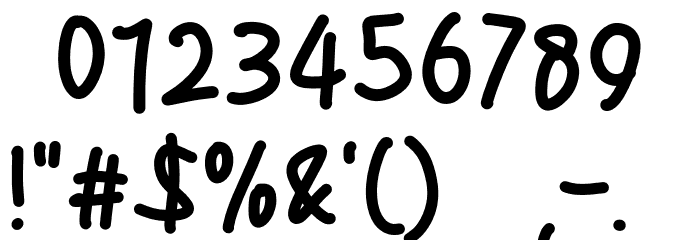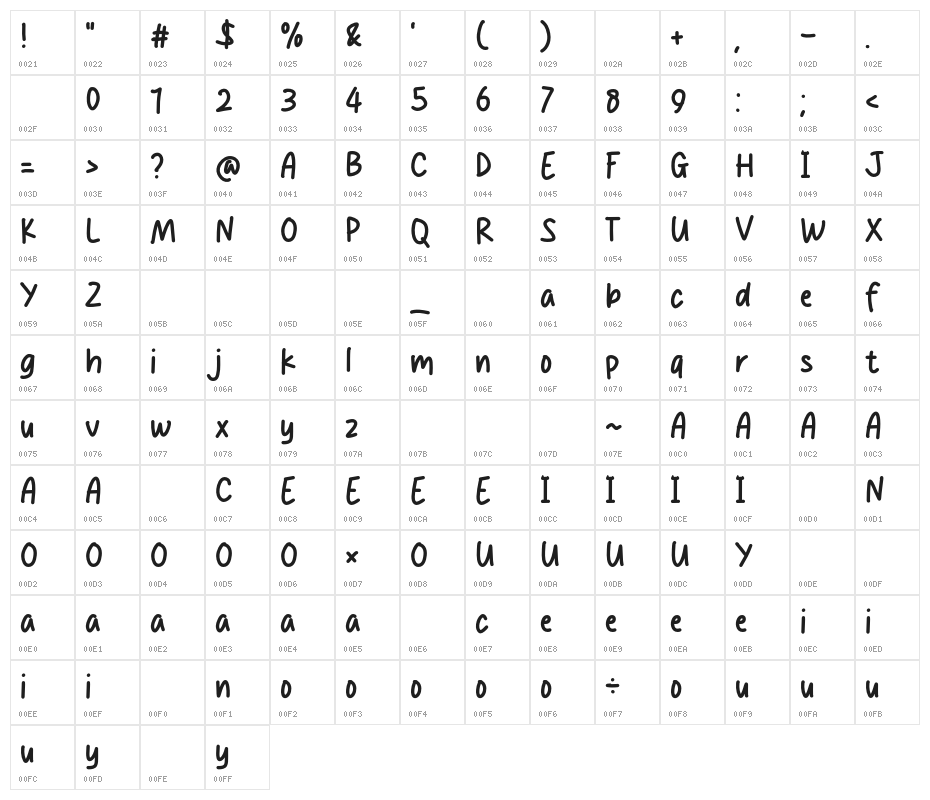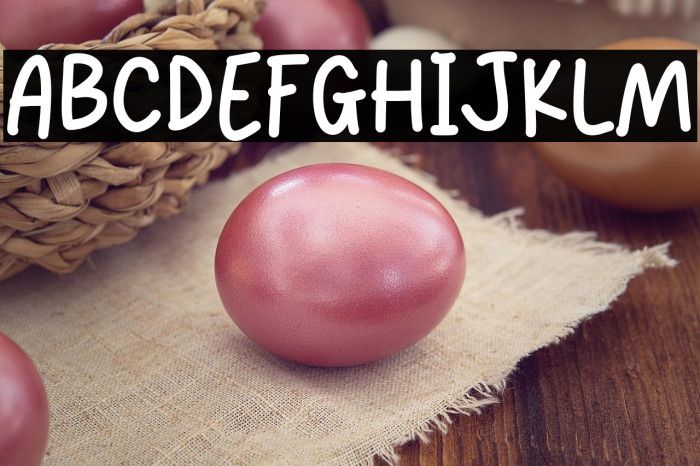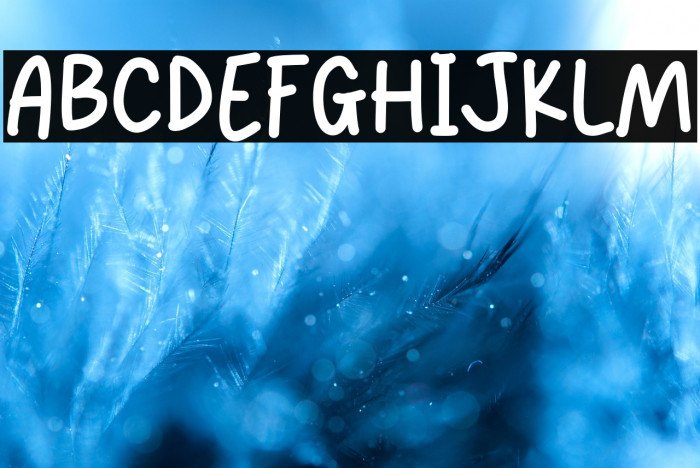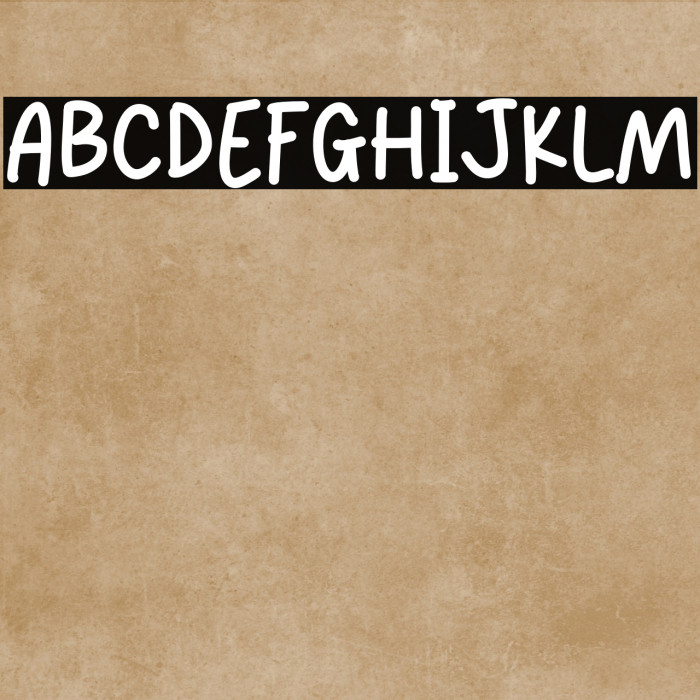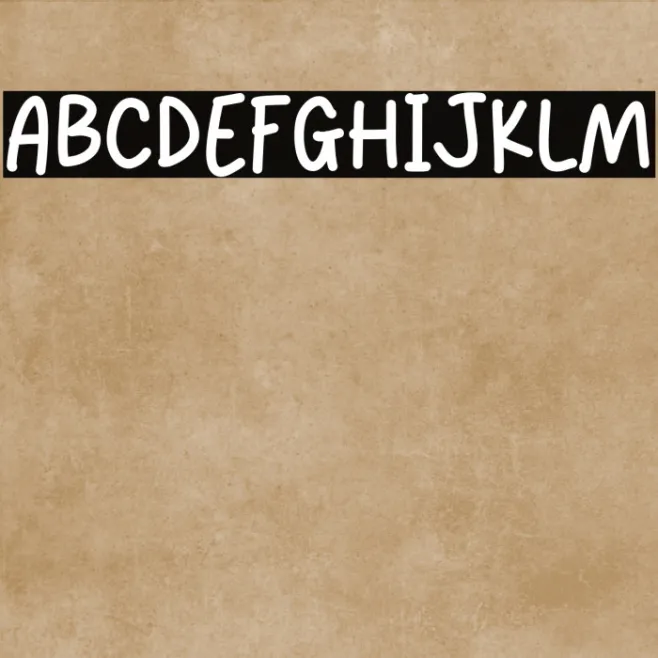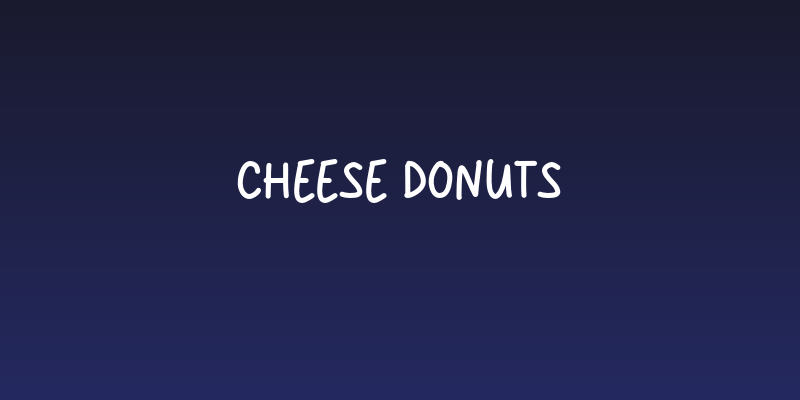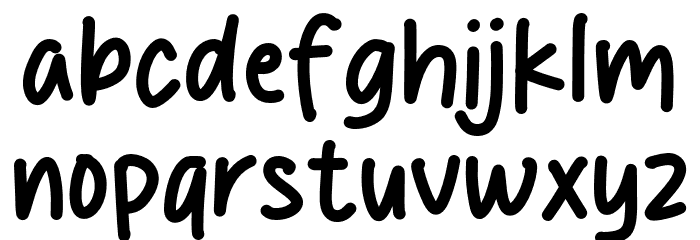
Cheese Donuts Font
Cheese Donuts Description
This playful and informal font features a handwritten style with rounded edges and a casual appearance. The letters have a consistent stroke width, giving it a uniform look while maintaining a friendly and approachable feel. The characters are slightly tilted, adding to the whimsical nature of the design. The font includes both uppercase and lowercase letters, numbers, and a variety of special characters, making it versatile for different uses. Its legibility and charm make it suitable for projects that require a personal touch.
| Use Case | Headlines, Informal text, Branding |
| Proposed Projects | Ideal for children's books, greeting cards, playful branding, and social media graphics. |